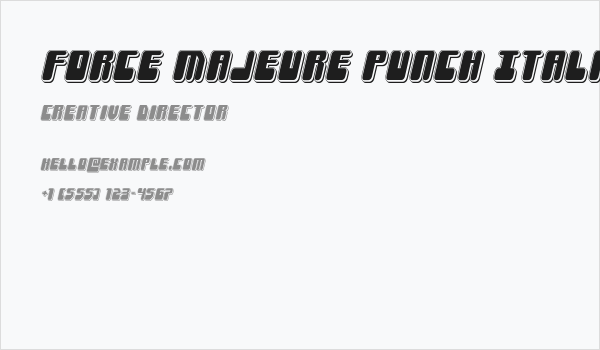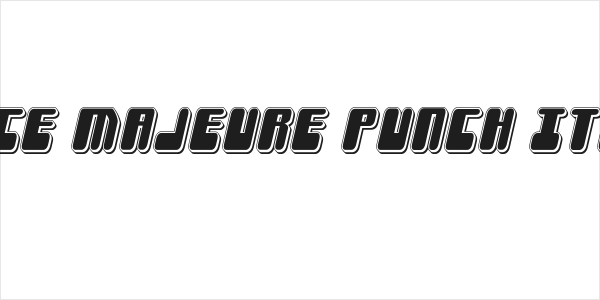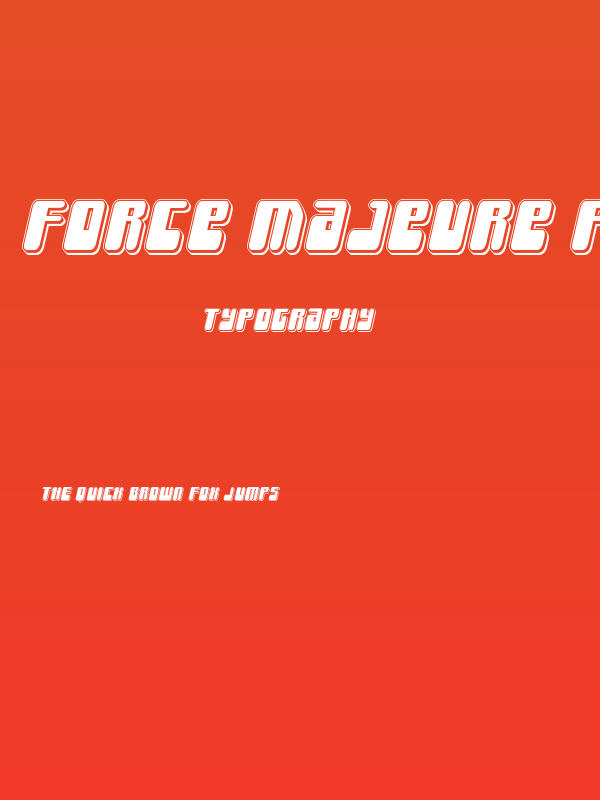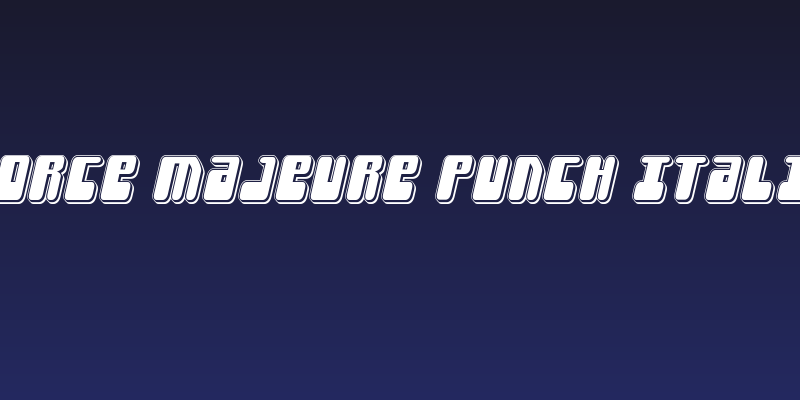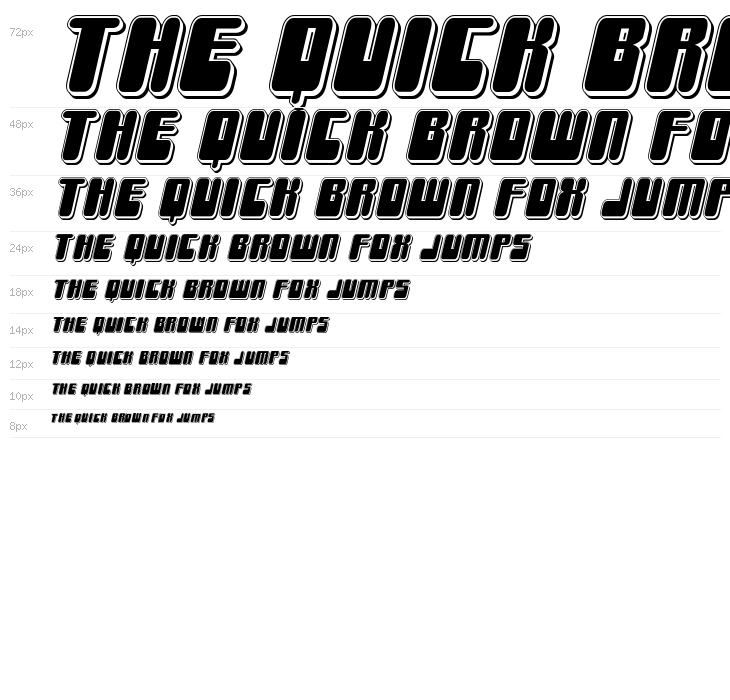
Force Majeure Punch Italic Font
Force Majeure Punch Italic Description
This font features a bold, dynamic style with a strong presence. The characters are thick and robust, with a distinct italic slant that adds a sense of motion and energy. The font is outlined, giving it a three-dimensional effect that enhances its visual impact. Each letter is designed with a consistent width and height, contributing to a uniform appearance across the typeface. The numbers and special characters maintain the same bold and italicized characteristics, ensuring cohesion throughout. The font's design is modern and eye-catching, making it suitable for projects that require a strong visual statement.